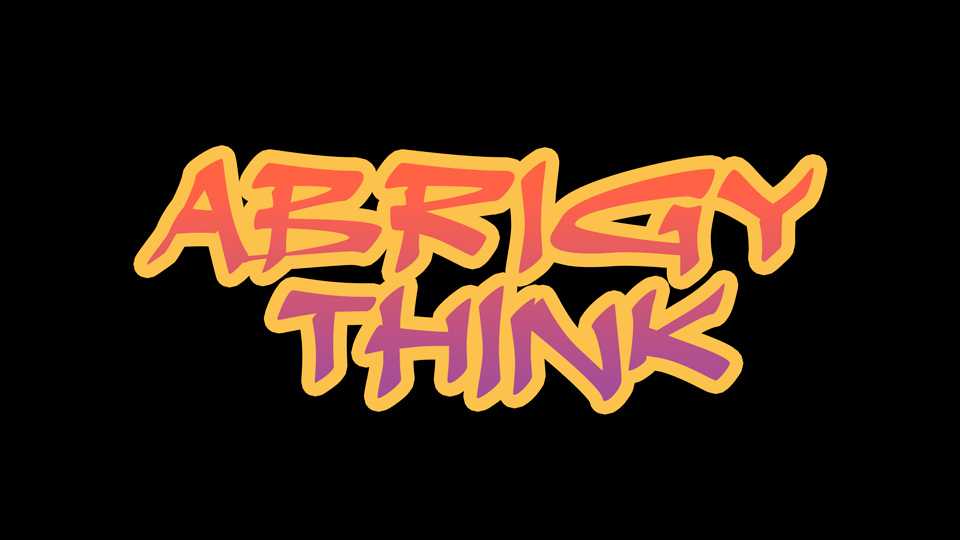
Download Abrigy Think font, a graffiti style hand painted typeface. Abrigy font looks great for posters, t-shirt prints, pacjaging, merchandise and more.